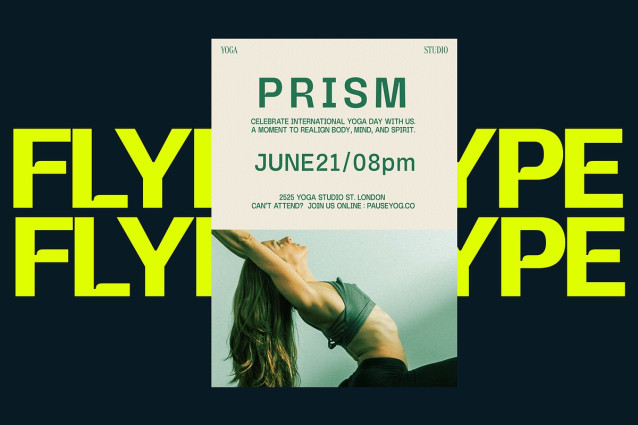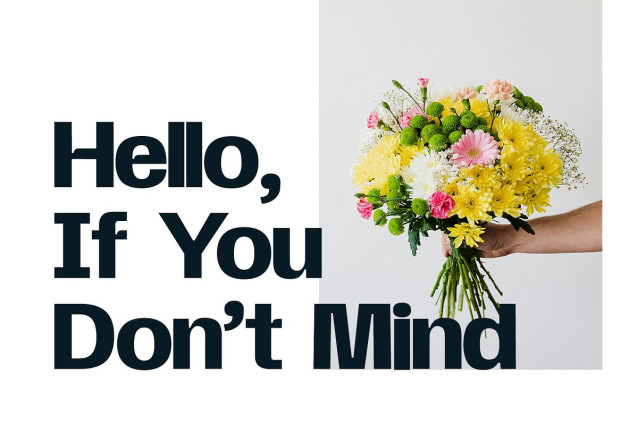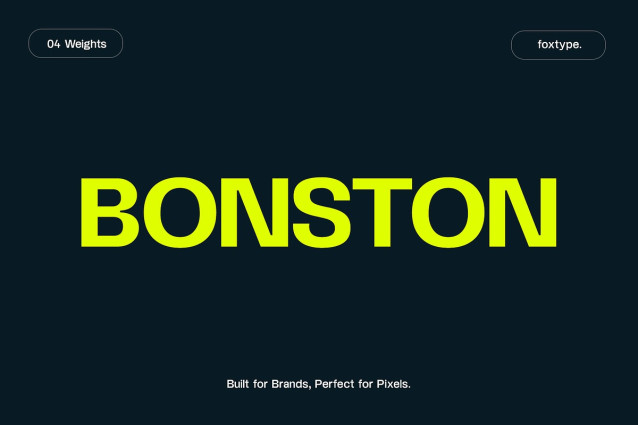
Bonston Font
Bonston Font is a modern and powerful typeface designed for maximum visual impact. Perfect for web projects, branding, posters, flyers, headlines, magazine covers, and bold graphic design, Bonston brings clarity and character to every layout. With its clean lines and strong presence, this font family is ideal for creative professionals, designers, and marketers seeking a high-impact visual solution.
This font package includes 4 essential weights — Regular, Medium, SemiBold, and Bold — offering you the flexibility to adapt to any project need. Whether you’re building a standout website UI, crafting a compelling brand identity, or designing eye-catching print materials, Bonston Display delivers unmatched readability and style.